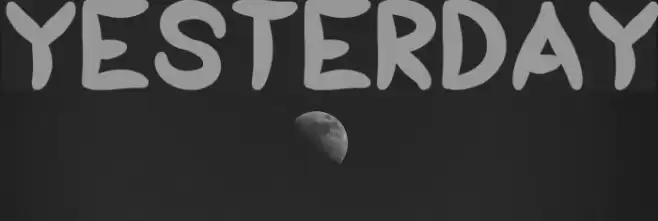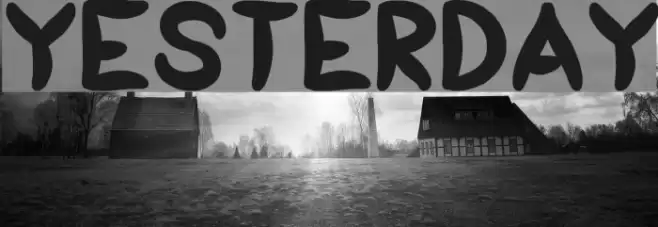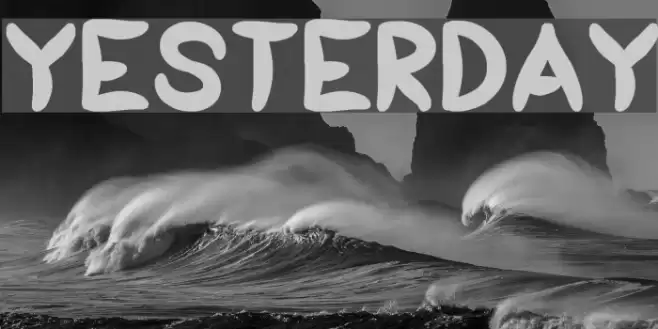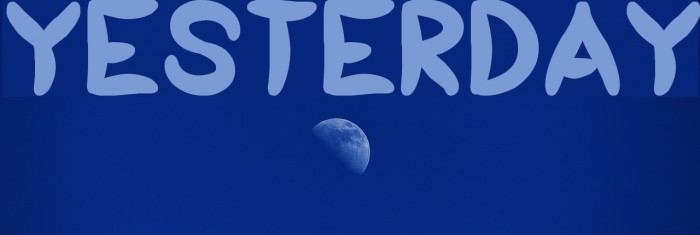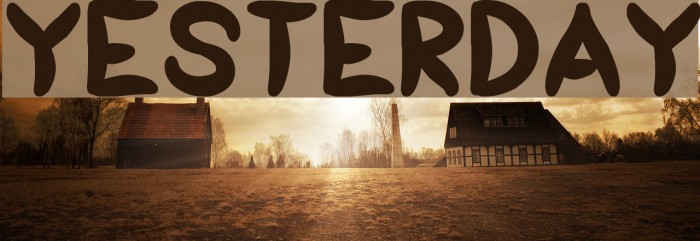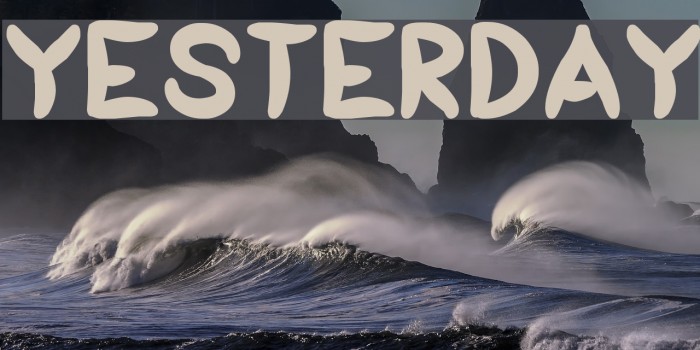
yesterday Font
yesterday Description
This font features a playful and bold handwritten style, characterized by its rounded and slightly irregular letterforms. Each character exhibits a dynamic flow, giving the font a lively and informal appearance. The strokes are thick and consistent, providing a strong visual impact. The overall design is reminiscent of casual handwriting, making it approachable and friendly. The uppercase letters maintain a uniform height, while the lowercase letters are slightly smaller, enhancing readability. This font is perfect for projects that require a personal touch or a fun, energetic vibe.
A bold, playful handwritten font with rounded, dynamic letterforms from Uncategorized fonts.
- Proposed Projects: Ideal for children's books, greeting cards, playful branding, and social media graphics.
- Overall Style: Playful
- Use Case: Headlines, Logos, Informal Text